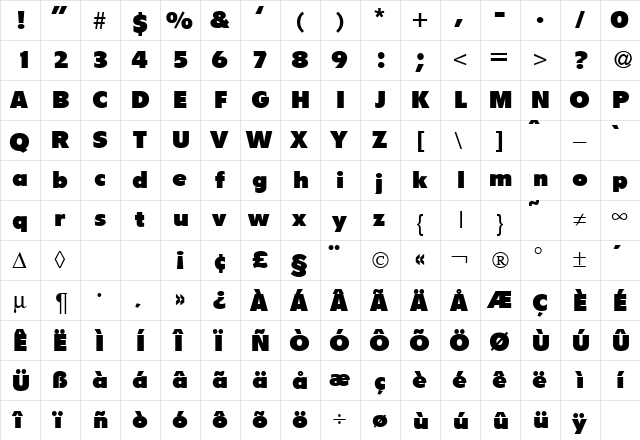
Flipper DB Bold
Design Context for Flipper DB Typeface
Flipper DB is a composed and adaptable typeface that performs quietly and consistently across a wide range of design contexts. The heavy weight commands attention and anchors typographic hierarchies.